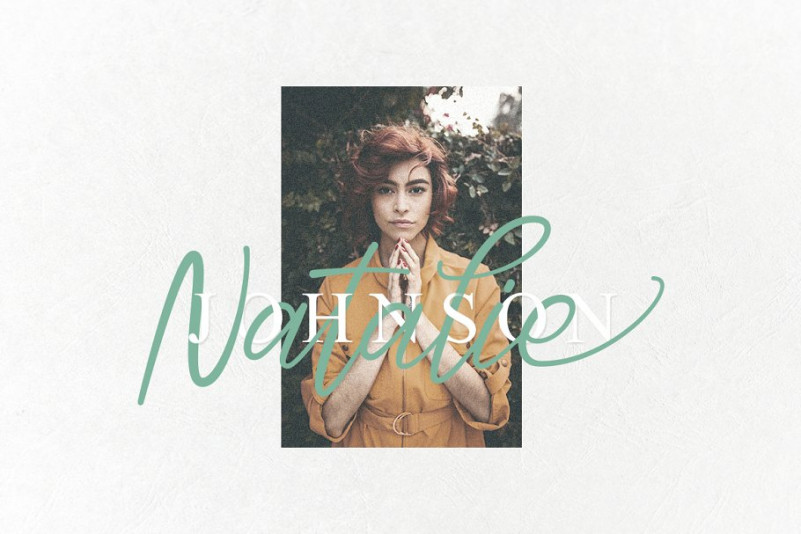
Adelliya Script Font
Introducing Adelliya Script Font. A font with a touch of modern calligraphy are useful to beautify every sentence written. Adelliya is built with opentype features with additional much ligatures and swash at the end so it makes it look natural as written by hand.
With various ligatures and swash, thus making it more varied. With modern calligraphy style for your daily and project needs ex: logo, fashion, label, photography watermark, quotes, blog header, poster, wedding, invitation, stationery, branding, letter, etc.